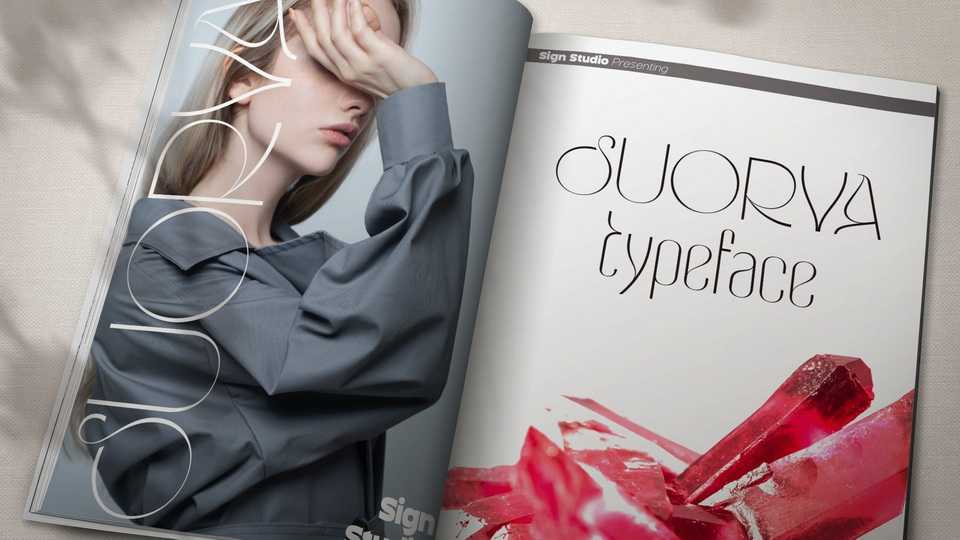
Download Suorva font, an elegant and sophisticated sans serif typeface made for display needs. With its aesthetic look Suorva font will elevate a wide range of crafting ideas, from cards, product branding, labels, and more.